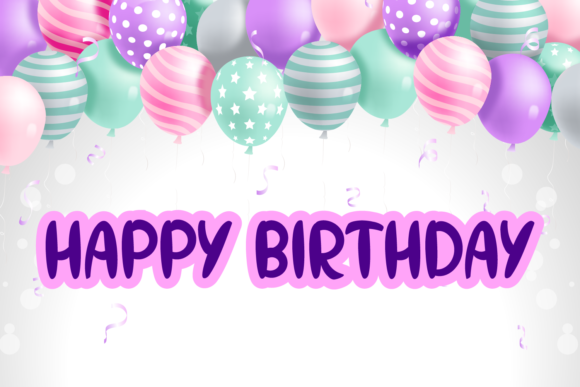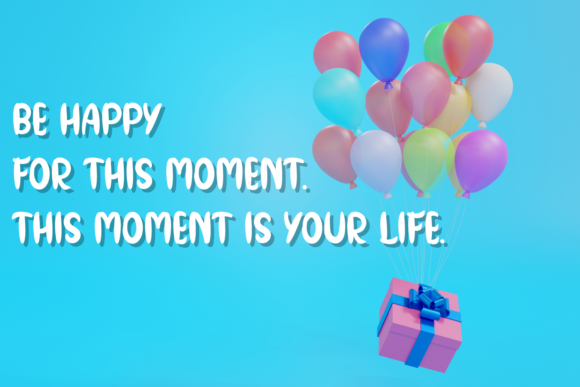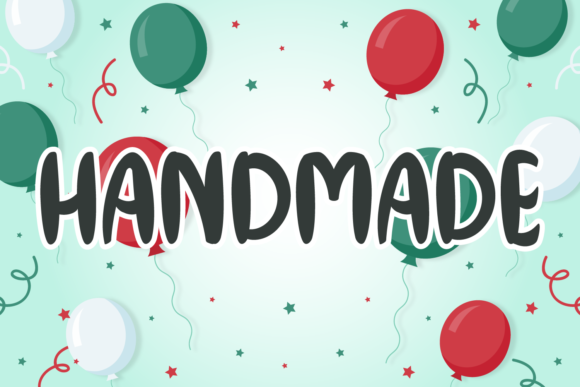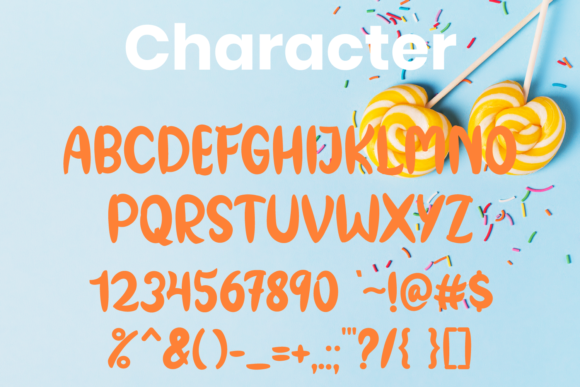
Introducing Five Balloons Font: The Perfect Addition to Your Design Arsenal
Are you tired of using the same old fonts in your designs? Look no further! Five Balloons Font is here to add a touch of whimsy and fun to your creations. This adorable display font is perfect for designers and crafters who want to add a playful twist to their work. In this article, we’ll dive into the world of Five Balloons Font and explore its endless possibilities.
The Charm of Five Balloons Font
Five Balloons Font is a cute and charming display font that is sure to capture the hearts of designers and crafters alike. Its cartoon-like vibe makes it an excellent choice for informal or casual designs, such as:
- Party invitations and decorations
- Kids’ party themes and activity sheets
- Crafting projects, like handmade cards and gift tags
- Branding and packaging for kids’ products
The font’s playful and carefree nature makes it an excellent addition to any design project that requires a dash of fun and personality.
Key Features of Five Balloons Font
So, what makes Five Balloons Font so special? Here are some of its key features:
- Cartoon-like vibe: Five Balloons Font has a distinctly playful and cartoon-like feel that is sure to delight audiences of all ages.
- Cute and charming: The font’s adorable design makes it perfect for projects that require a touch of whimsy and charm.
- Display font: Five Balloons Font is a display font, making it perfect for headlines, titles, and other attention-grabbing elements.
- Informal and casual: This font is ideal for informal and casual designs, such as party invitations, kids’ activity sheets, and social media graphics.
Endless Variations and Possibilities
One of the best things about Five Balloons Font is its versatility. With this font, you can create a wide range of designs, from simple and elegant to bold and playful. Here are some ideas to get you started:
- Mix and match: Pair Five Balloons Font with other fonts to create unique and interesting combinations.
- Experiment with colors: Try out different colors and gradients to add depth and visual interest to your designs.
- Add graphics and illustrations: Combine Five Balloons Font with cute graphics and illustrations to create engaging and interactive designs.
- Play with textures and patterns: Add texture and pattern to your designs to give them a tactile and organic feel.
Tips for Using Five Balloons Font
To get the most out of Five Balloons Font, here are some tips to keep in mind:
- Use it for headlines and titles: Five Balloons Font is perfect for grabbing attention and making a statement.
- Keep it simple: Don’t be afraid to keep your design simple and clean to let the font shine.
- Experiment and have fun: The key to using Five Balloons Font effectively is to experiment and have fun with it!
Five Balloons Font is a delightful and charming display font that is sure to add a touch of whimsy and fun to your designs. With its cartoon-like vibe and versatility, it’s perfect for a wide range of informal and casual design projects. Whether you’re a designer, crafter, or simply someone who loves to create, Five Balloons Font is an excellent addition to your design arsenal. So why not give it a try and see what amazing creations you can come up with?